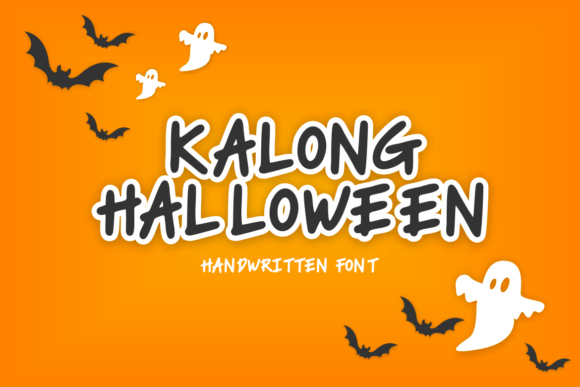
Behold Kalong Halloween, the spooktacular script font that sends chills down your spine. Unleash your creativity and let the haunting spirit of Halloween possess your designs. Whether you're conjuring a haunted house flyer or casting a spellbinding party invitation, Kalong Halloween will cast a spell on your audience. Its bold, all-caps letters scream for attention, making every word a spine-tingling experience.
Step into the shadows and let Kalong Halloween's unique charm cast its web on your projects. Its meticulously crafted curves and sharp edges dance together in perfect harmony, creating a font that's both elegant and eerie. Gone are the days of boring, predictable fonts - Kalong Halloween is here to unleash your design demons and make your creations scream with originality.
Embrace the darkness and let Kalong Halloween haunt your designs with its captivating presence. It's the perfect font for those who dare to be different, those who seek to leave a lasting impression. So, dive headfirst into the world of Halloween and let Kalong Halloween be your guiding light. Your designs will surely rise from the dead and leave your audience spellbound.